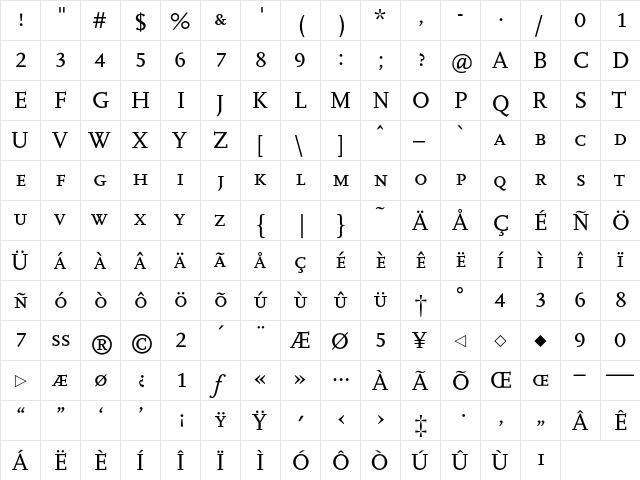
Cscala Caps
Design Context for Cscala Typeface
Cscala is a composed and adaptable typeface that performs quietly and consistently across a wide range of design contexts.